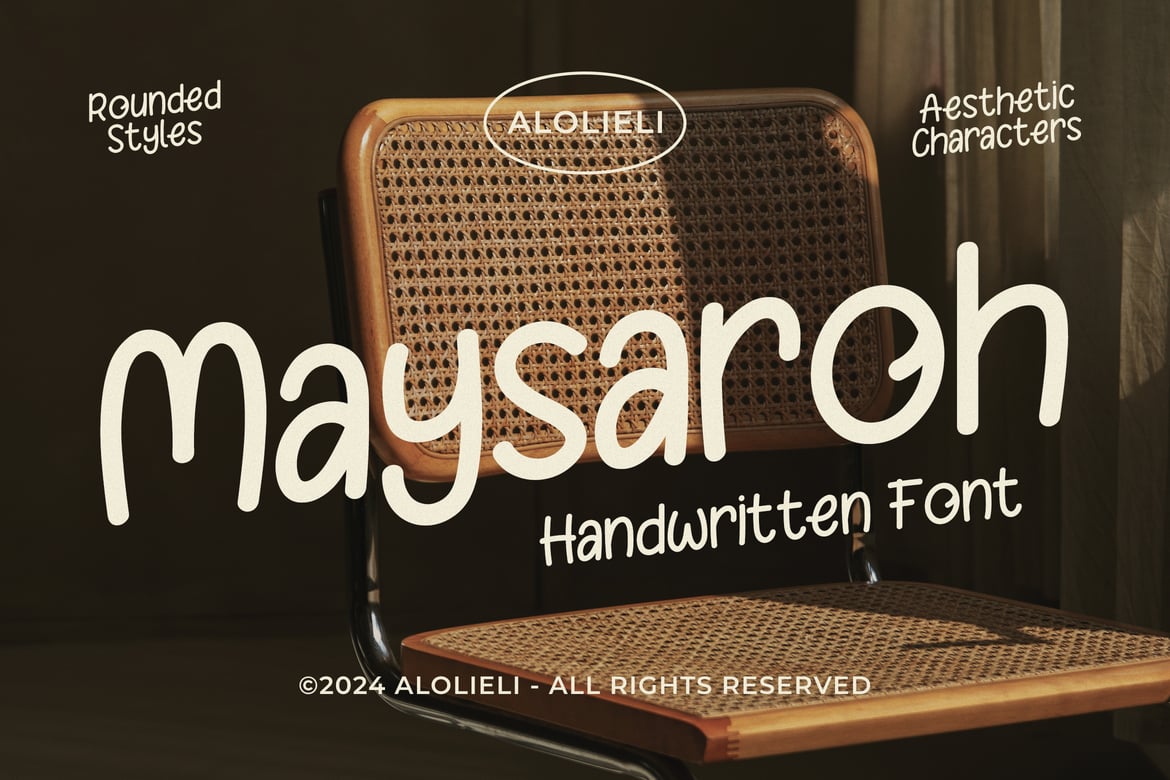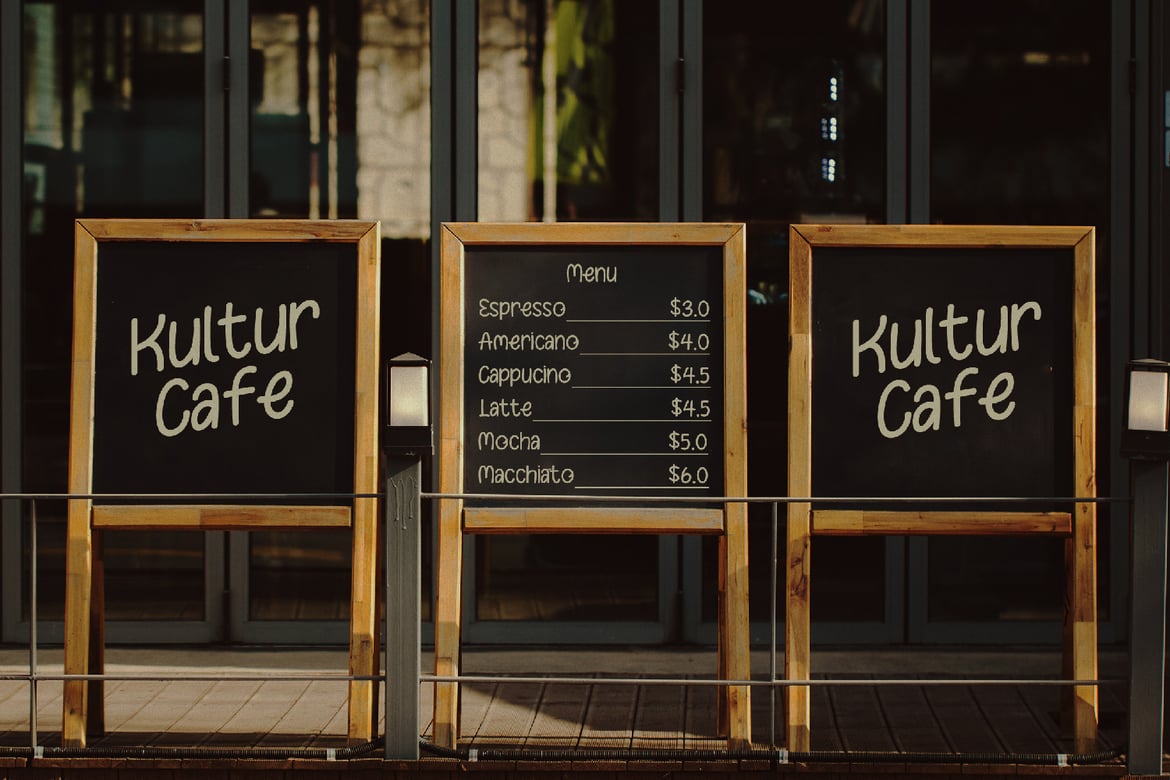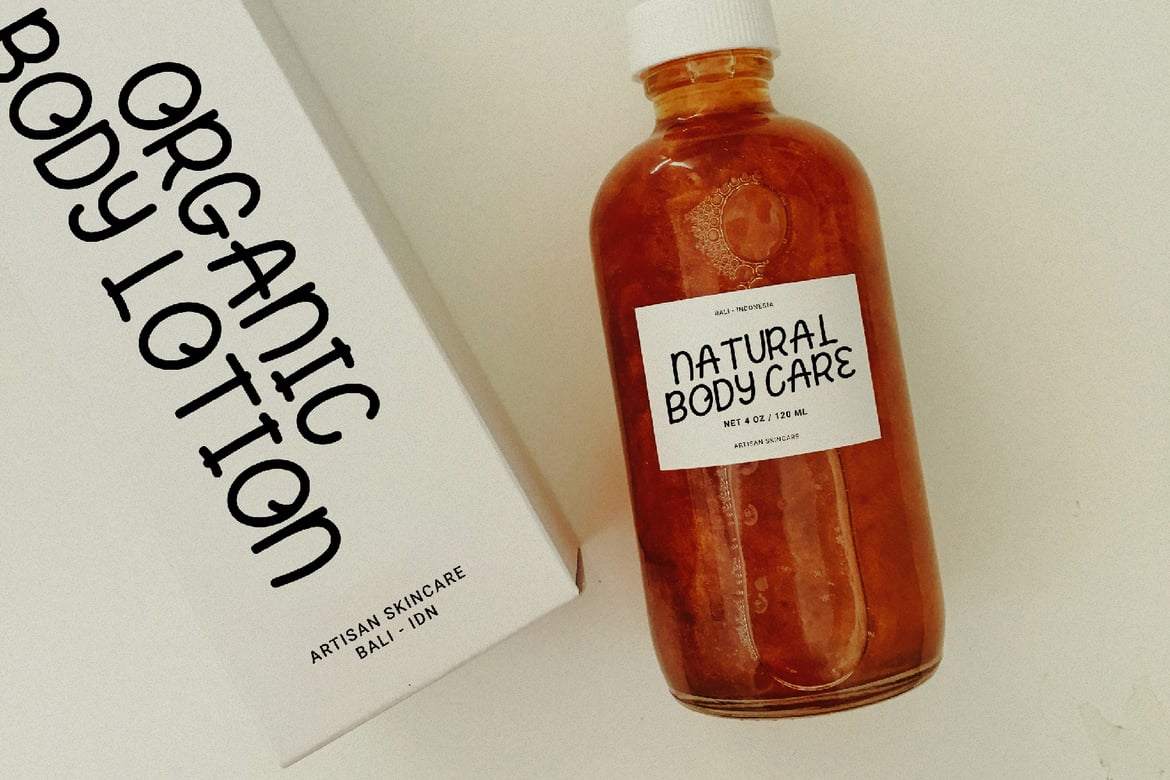
Features
* Rounded Style: Each letter is crafted with a smooth, rounded style, giving it a welcoming and pleasant look.
* Aesthetic Characters: Maysaroh features distinctive, artistic characters that add an easily recognizable aesthetic flair.
* Versatile Use: Perfect for a variety of applications, such as posters, invitations, labels, logos, and packaging designs.